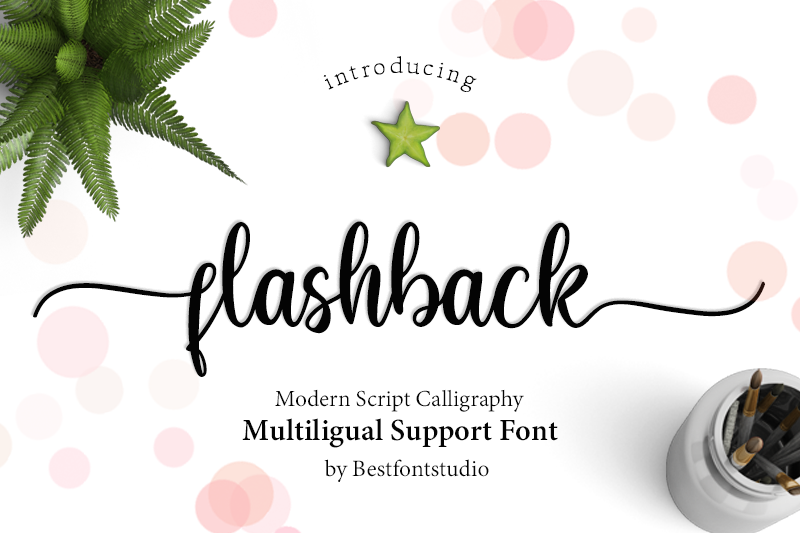
Preview and download Flashback Font. Created by Best Font Studio in Script Handwritten styles with Free for personal use license.
This font is free for PERSONAL USE only. flashback Script is modern stylish copperplate calligraphy fonts, combines from copperplate to contemporary typeface with a dancing baseline, classic and elegant touch. Can be used for various purposes.such as headings, signature, logos, wedding invitation, t-shirt, letterhead, signage, lable, news, posters, badges etc. link to purchase full version and commercial license: - https://fontbundles.net/best-font-studio/rel=NbuTD2 - https://crmrkt.com/05yE2l Any question, drop me email to Hello.Bestfontstudio@gmail.com Paypal account for donation : https://www.paypal.me/bestfontstudio Thank You, Best Font Studio FOLLOW MY UPDATE FOR UPDATE: - https://twitter.com/bestfontstudio - https://www.facebook.com/bestfonts - https://www.instagram.com/bestfontstudio |